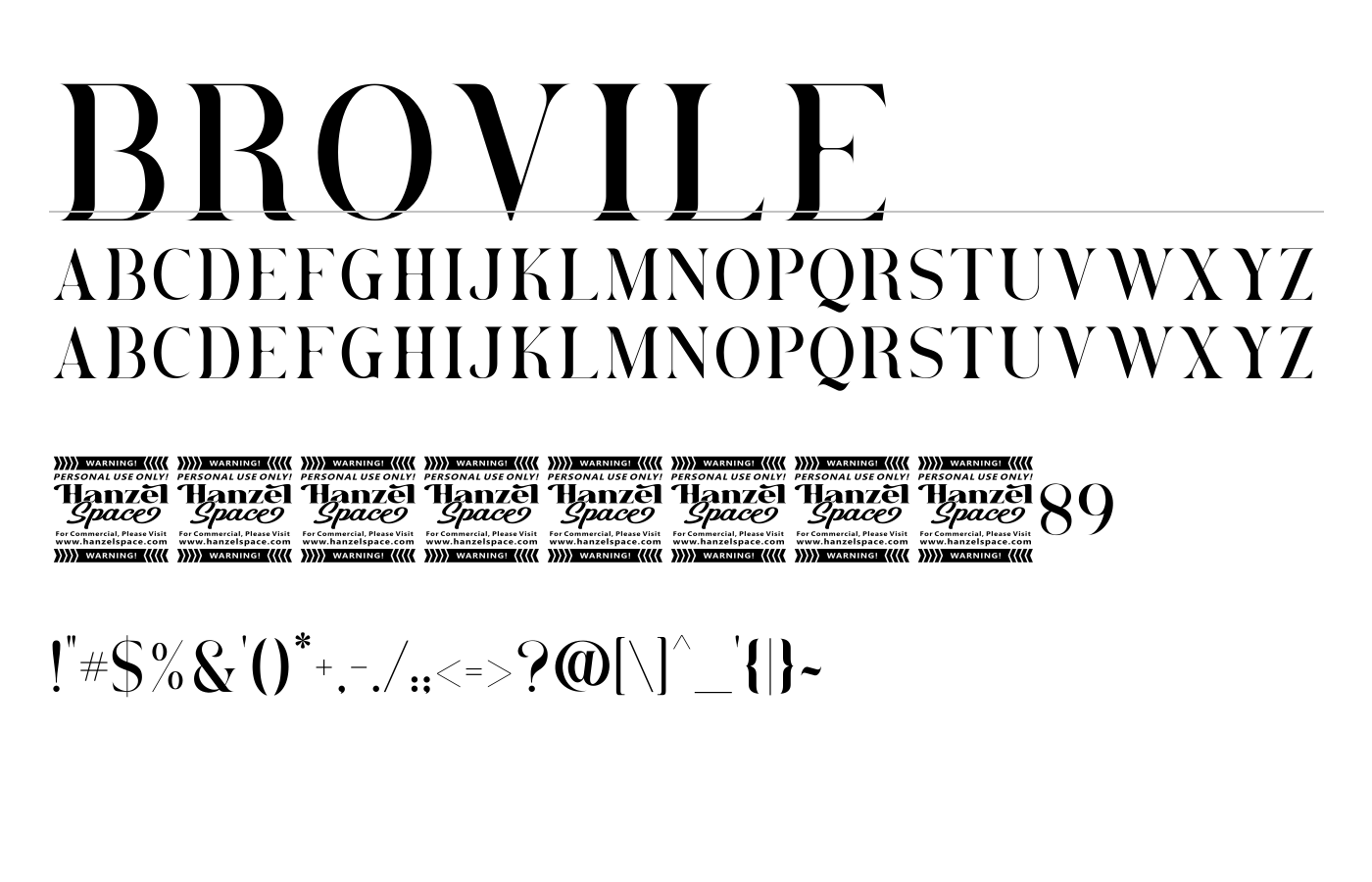
Brovile is a refined serif font featuring high contrast between thick and thin strokes, with elegant, sharp serifs that evoke a classic and sophisticated feel. Its tall, narrow letterforms and distinctive details, like the stylized 'R' leg and pointed 'Q' tail, make it ideal for luxury branding, editorial headlines, and fashion-focused designs where an upscale, timeless impression is desired. This font works best in large sizes, delivering a dramatic and polished look that stands out with grace and clarity.
Brovile Font
About Brovile Font